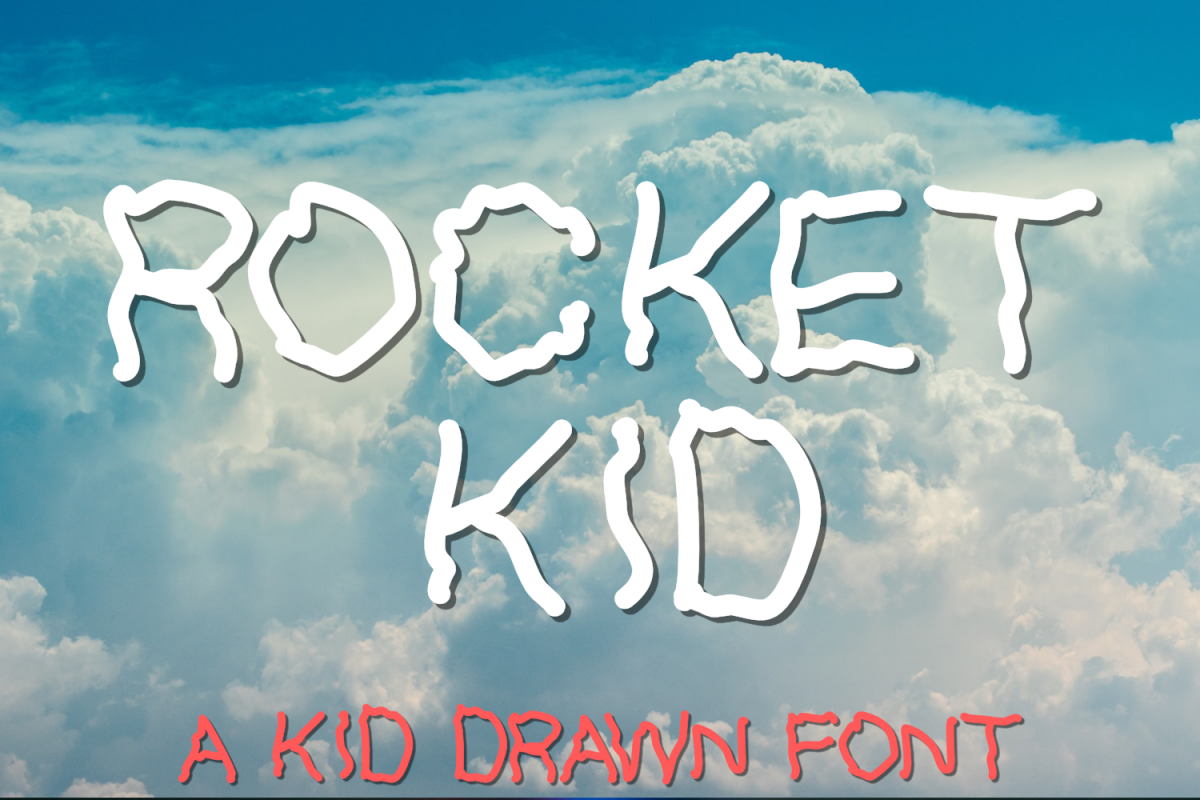
Rocket Kid | An All Caps Kid Drawn Font
Introducing Rocket Kid
An all caps, kid made font!
This font was created for you by my four year old son! It will give you the perfect kid-look to any project you’re creating!